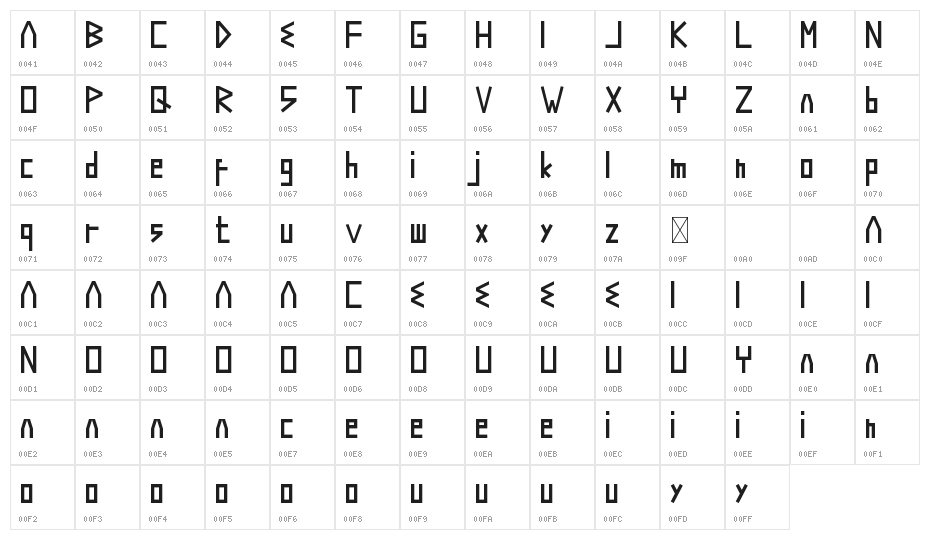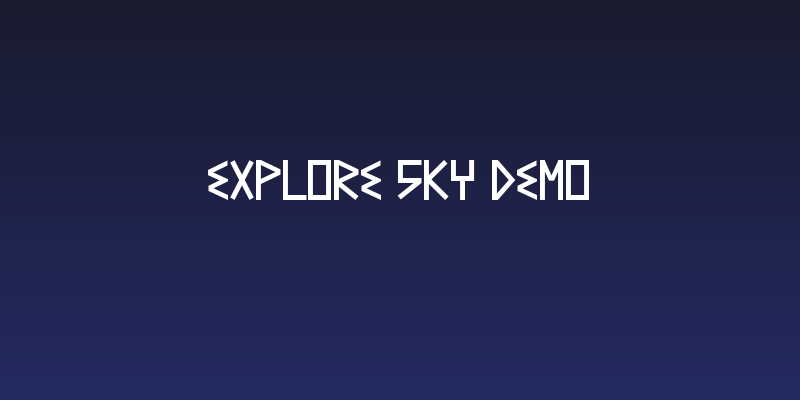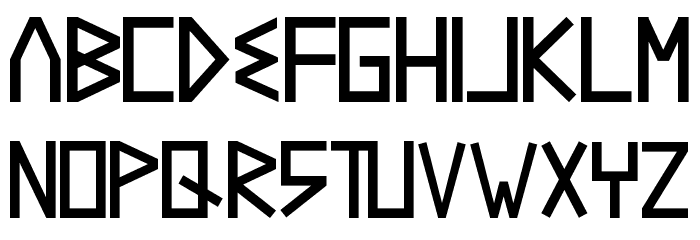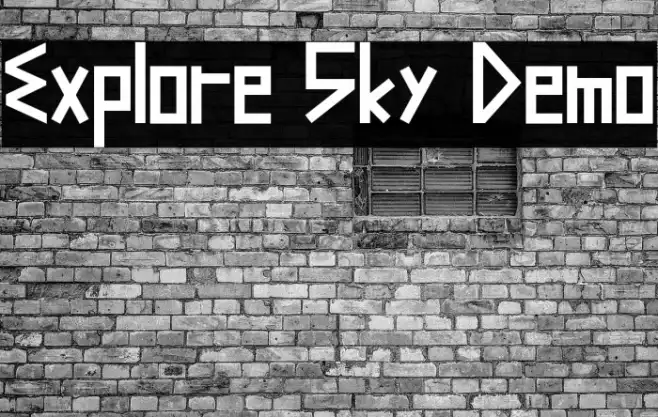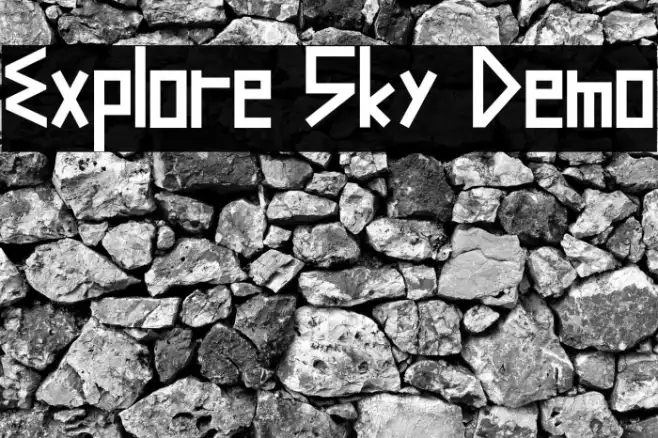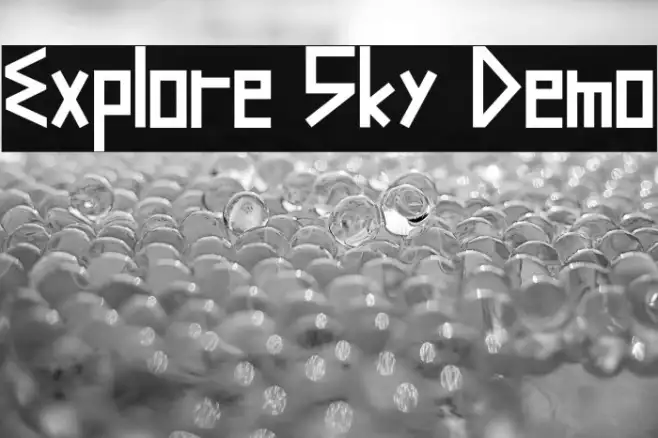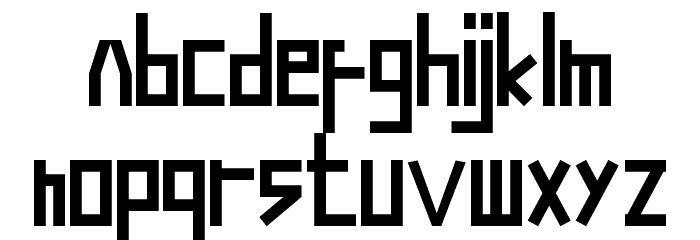
Explore Sky Demo Font
Explore Sky Demo Description
This font features a bold, geometric design with sharp angles and a futuristic aesthetic. The characters are constructed with straight lines and angular forms, giving it a distinct, edgy appearance. The uppercase and lowercase letters maintain a consistent style, with unique variations in certain characters like 'A', 'B', and 'E', which incorporate diagonal lines and cut-out shapes. The numerals and special characters follow the same geometric theme, ensuring uniformity across the typeface. This font's modern and striking design makes it suitable for projects that require a bold statement.
| Proposed Projects | Ideal for sci-fi themed designs, video game titles, posters, and branding that requires a modern and edgy feel. |